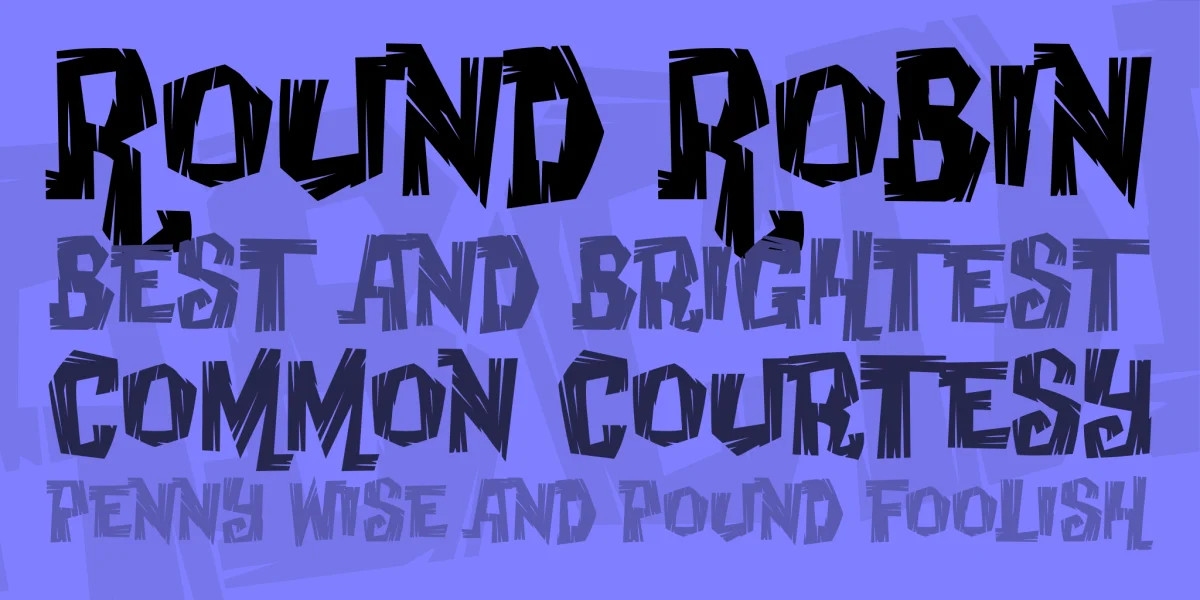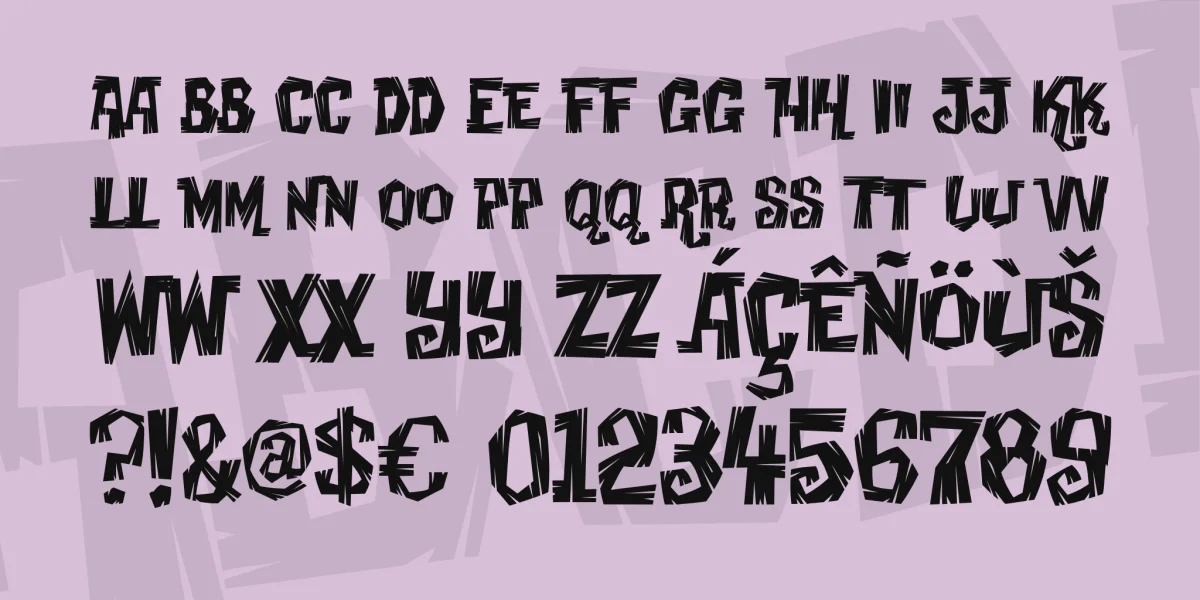
Creaky Frank is for all you boils n' ghouls who dig your fonts fresh from the grave...you know, like creepsville, man! A commercial license is available at MyFonts.